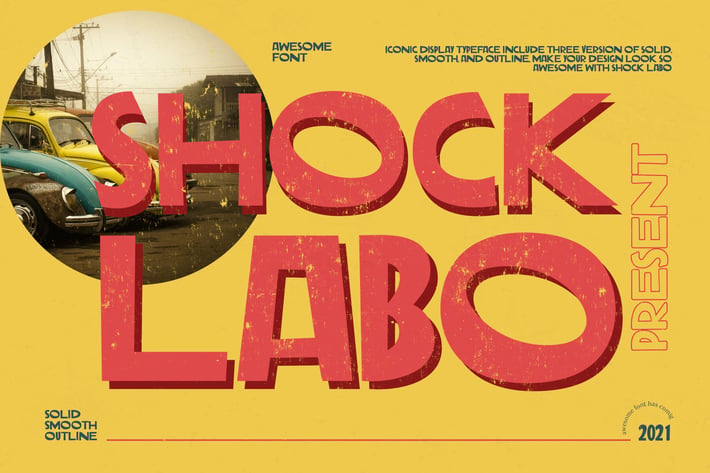
Shock Labo Unique Vintage Font
Shock Labo is Unique Vintage Font . It can easily be matched to an incredibly large set of projects, so add it to your creative ideas and notice how it makes them stand out!